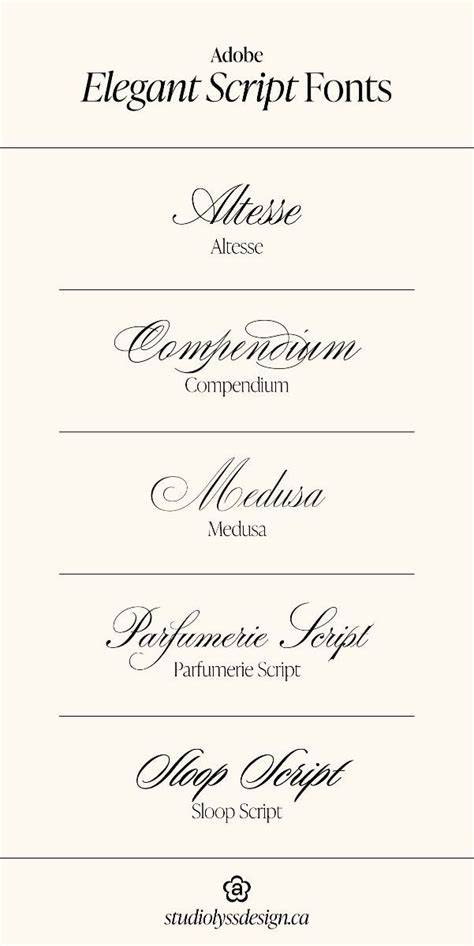
Discover The World Of Adobe Script Fonts In 2023
Are you looking to add a unique, creative touch to your designs in 2023? Look no further than Adobe Script Fonts. Whether you’re creating a logo for a business, designing a website, or crafting a poster for an event, Script Fonts offer a wide range of styles and designs to choose from. But what are Adobe Script Fonts, and why should you choose them for your projects? In this article, we’ll discuss what makes Script Fonts so popular, how you can use them in your designs, and some of the top Script Fonts you should consider for your projects. Keep reading to learn more!
What Are Adobe Script Fonts?
Adobe Script Fonts are a type of typeface that is characterized by its unique, decorative style. Script Fonts are often seen as a combination of cursive, calligraphy, brush lettering, handwriting, and other decorative writing styles. Because of this, Script Fonts can be used to create a wide range of designs and add a creative, personalized touch to any project. Script Fonts can be used for logos, posters, websites, and other projects, and are often seen as a great way to add a unique and stylish touch to any design.
Advantages of Adobe Script Fonts
Adobe Script Fonts have a range of advantages that make them a popular choice for designers. First, they are extremely versatile and can be used to create a wide range of designs. Script Fonts can be used to create logos, posters, websites, and more, making them a great choice for any project. Secondly, Script Fonts are also very easy to customize and modify. You can easily adjust the size, color, and style of your Script Fonts to create the perfect look for your design. Finally, Script Fonts are also very versatile and can be used for a wide range of projects, from logos to websites to posters.
How to Use Adobe Script Fonts in Designs
Adobe Script Fonts can be used in a variety of ways in designs. First, you can use them to create logos for businesses, websites, and other projects. Script Fonts can also be used to create posters, flyers, and other designs. Additionally, Script Fonts can be used to create unique, stylish typefaces for websites, or to create a unique, decorative style for posters and flyers. Finally, Script Fonts can also be used to create decorative elements for logos and websites.
Top Adobe Script Fonts to Consider in 2023
When choosing Script Fonts for your designs, there are a few popular options to consider. One of the top Script Fonts in 2023 is Dollhouse, a beautiful, modern Script Font that is perfect for logos and websites. Another great option is Calligraphy, which offers a classic, elegant style that is perfect for logos and posters. Finally, Monogram is a classic Script Font with a unique, decorative style that is perfect for logos and websites. These are just a few of the top Script Fonts to consider for your projects in 2023.
Adobe Script Fonts are a great way to add a unique, creative touch to your designs in 2023. Script Fonts are versatile and can be used for a wide range of projects, from logos to websites to posters. Additionally, Script Fonts are also very easy to customize and modify to create the perfect style for your project. Finally, some of the top Script Fonts to consider in 2023 are Dollhouse, Calligraphy, and Monogram. With the right Script Fonts, you can create stunning designs that will stand out from the competition.